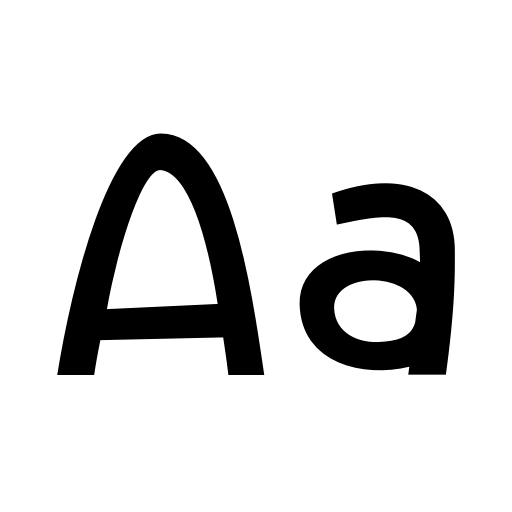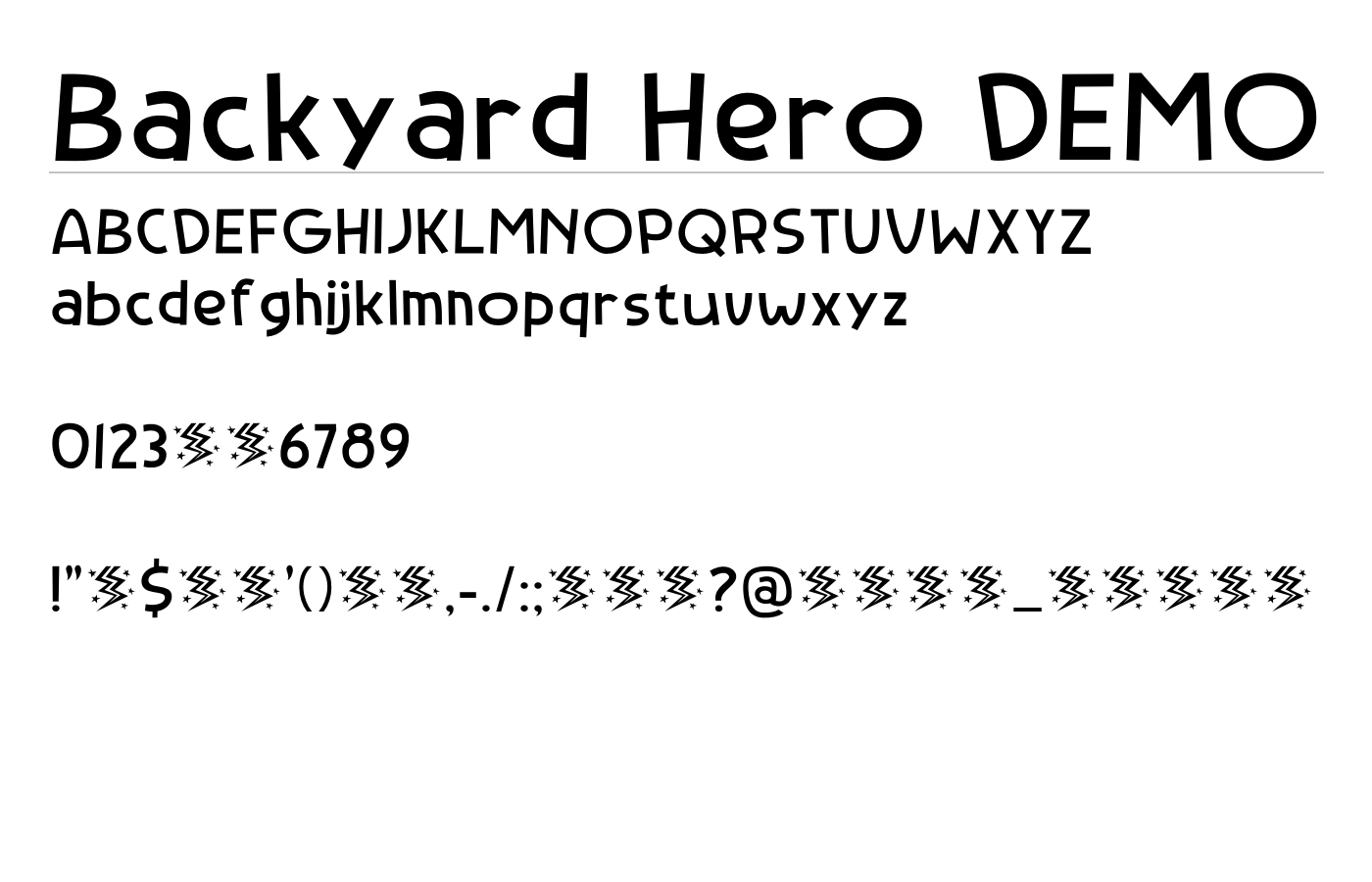
Backyard Hero DEMO is a playful and casual sans serif font with a friendly, hand-drawn feel. Its irregular letterforms and moderate x-height give it an approachable and whimsical personality, making it ideal for projects that want to convey fun, creativity, and informality. This font works well for children’s books, comic-style designs, casual branding, and any creative use where a relaxed and inviting vibe is desired.
Backyard Hero DEMO Font
About Backyard Hero DEMO Font